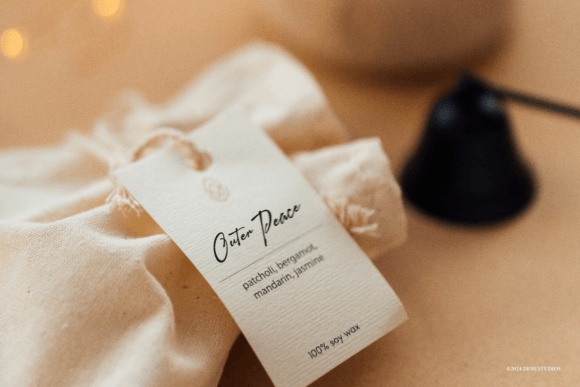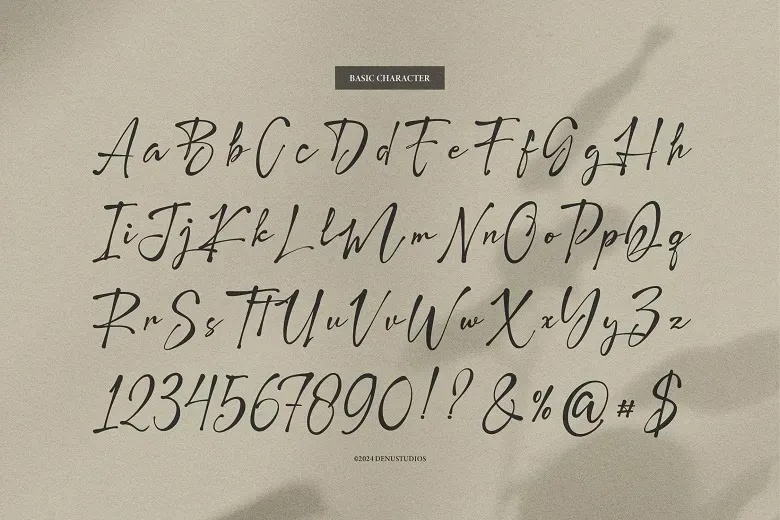
Pegiblue Font
Pegiblue Font adds a touch of elegance and charm to any project. Perfect for logos, branding, homeware designs, product packaging, mugs, quotes, posters, t-shirts, book covers, invitations, labels, photography, and more. Its classic signature style enhances everything from everyday designs to special events.
Pegiblue Signature Script Font